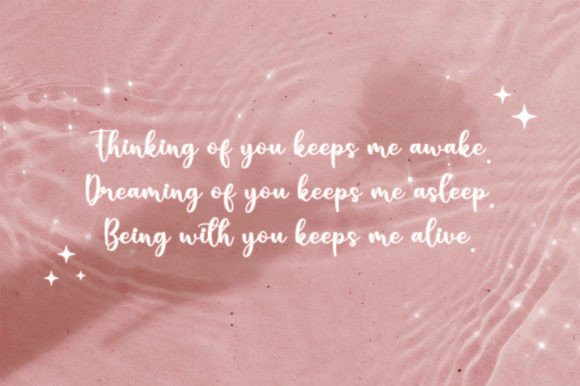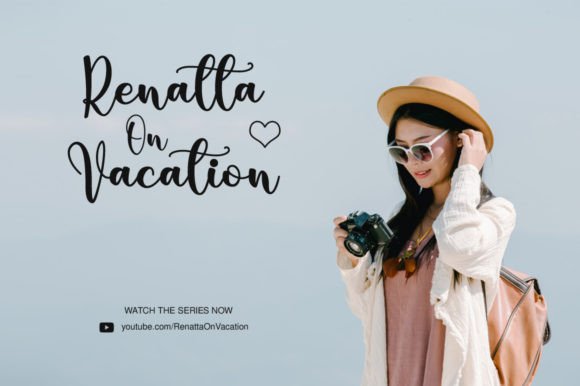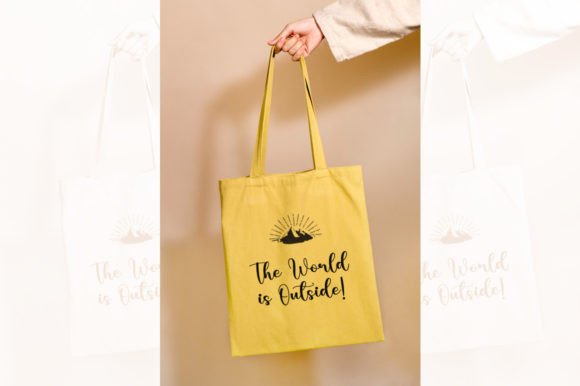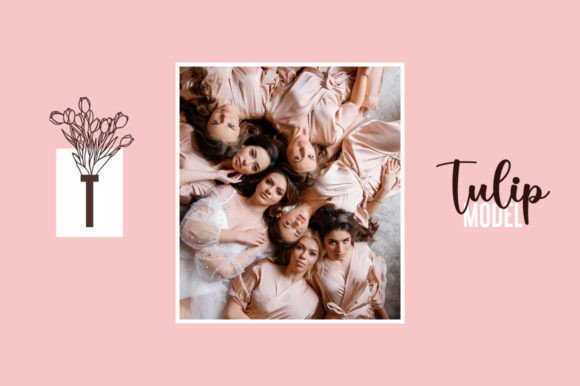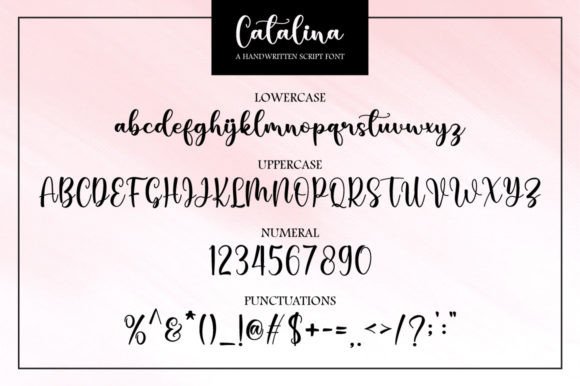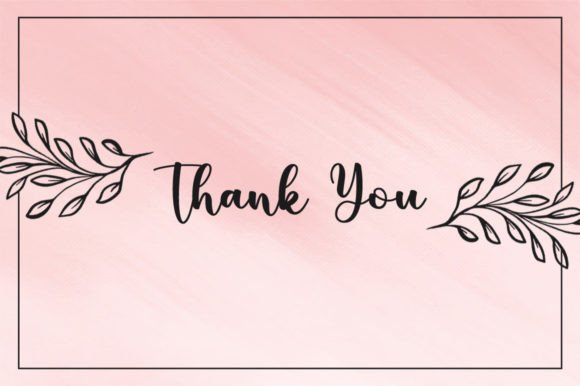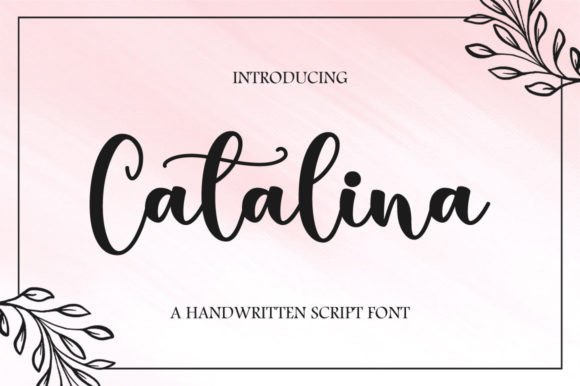
Catalina Font: A Timeless Handwritten Font for Creative Projects
Catalina Font is a beautiful and elegant handwritten font that has captured the hearts of designers and crafters alike. Its lovely and timeless design makes it an ideal choice for creating eye-catching logos, branding, and quotes that stand out from the crowd. In this article, we’ll dive into the world of Catalina Font, exploring its features, benefits, and uses, as well as provide tips and inspiration for incorporating it into your creative projects.
What is Catalina Font?
Catalina Font is a handwritten font designed to evoke a sense of nostalgia and sophistication. Its flowing lines and delicate curves give it a unique and feminine touch, making it perfect for projects that require a personal and elegant feel. The font is highly legible, even at small sizes, making it versatile for use in a variety of applications, from logos and branding to quotes and social media graphics.
Features of Catalina Font
- Handwritten design: Catalina Font boasts a beautiful, handwritten design that adds a personal touch to any project.
- Timeless elegance: The font’s classic design ensures it remains stylish and relevant, even as design trends evolve.
- High legibility: Catalina Font is easy to read, even at small sizes, making it perfect for use in a variety of applications.
- Versatile: The font can be used for a wide range of projects, from logos and branding to quotes, social media graphics, and more.
Benefits of Using Catalina Font
So, why choose Catalina Font for your creative projects? Here are just a few benefits of using this lovely font:
- Adds a personal touch: Catalina Font’s handwritten design adds a personal and humanizing element to your projects.
- Creates a lasting impression: The font’s elegant design ensures your projects will leave a lasting impression on your audience.
- High-quality: The font is designed to high standards, ensuring it will look great in any project.
Uses of Catalina Font
Catalina Font is a versatile font that can be used in a wide range of creative projects, including:
- Logos and branding: Create a lasting impression with a custom logo or branding that showcases your unique identity.
- Quotes and social media graphics: Add a touch of elegance to your quotes and social media graphics with Catalina Font.
- Stationery and invitations: Create beautiful stationery and invitations that showcase your personal style.
- Digital and print projects: Use Catalina Font in a variety of digital and print projects, from brochures and flyers to business cards and more.
Tips for Using Catalina Font
To get the most out of Catalina Font, here are a few tips to keep in mind:
- Experiment with colors: Catalina Font looks great in a variety of colors, so don’t be afraid to experiment and find the perfect hue for your project.
- Pair with other fonts: Combine Catalina Font with other fonts to create a unique and eye-catching design.
- Use it sparingly: While Catalina Font is beautiful, it’s best used sparingly to avoid overwhelming your design.
Inspiration and Examples
Need inspiration for your next project? Here are a few examples of how Catalina Font can be used:
- Wedding stationery: Create beautiful wedding stationery, including invitations, save-the-dates, and thank-you cards.
- Branding and packaging: Use Catalina Font to create a custom brand identity that showcases your unique style.
- Social media graphics: Add a touch of elegance to your social media graphics, including quotes, promotions, and more.
With its timeless design and versatile uses, Catalina Font is a must-have for designers and crafters looking to add a personal touch to their projects. Whether you’re creating logos and branding, quotes and social media graphics, or stationery and invitations, Catalina Font is the perfect choice.